In India Street Lettering: A Journey Through Typographic Craft & Culture, Pooja Saxena shines a spotlight on the country’s urban letterforms—and the surprising stories behind them.
Take a short walk in any Indian neighbourhood and you’ll find signboards in a profusion of languages, styles, materials, and colours. So far, this living typographic archive has existed on the fringes of mainstream design discourse. India Street Lettering brings it to the fore, celebrating the artistic expression, linguistic diversity, and historical intrigue found in the vibrant letterforms around the country.
Drawing from a decade of documentation and research, India Street Lettering: A Journey Through Typographic Craft & Culture is a showcase of the country’s lively public lettering landscape, and an emphatic call to give this artistry the place it deserves in the design canon.
The book is divided into five chapters that scrutinise how signs are imagined — on shops, restaurants, cinemas, banks, post offices, even homes — and the role that typography and cultural history play in their design. Together, the chapters feature over 300 photographs from 17 cities and in 13 scripts, painting a vivid picture of urban neighbourhoods in India.
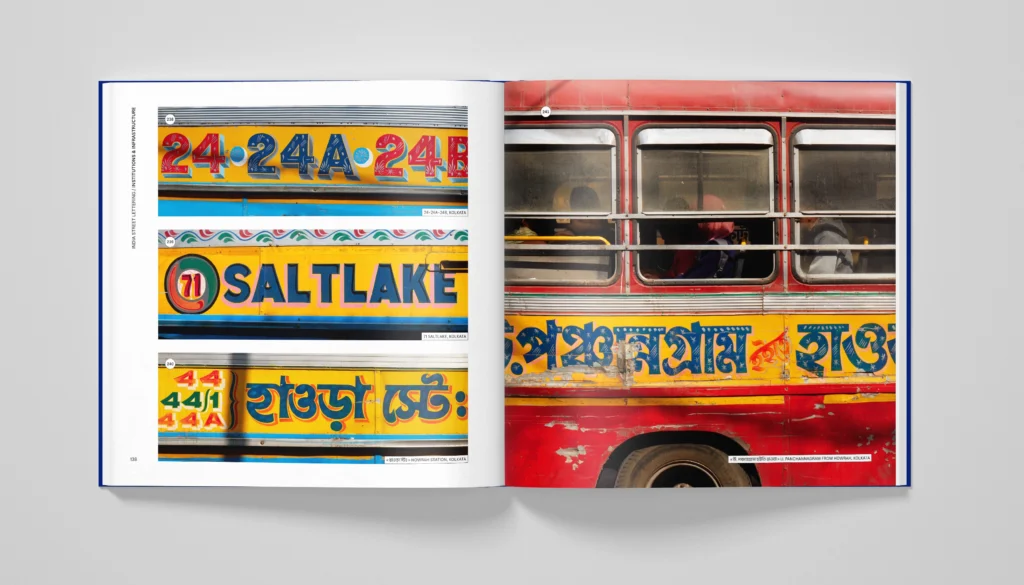
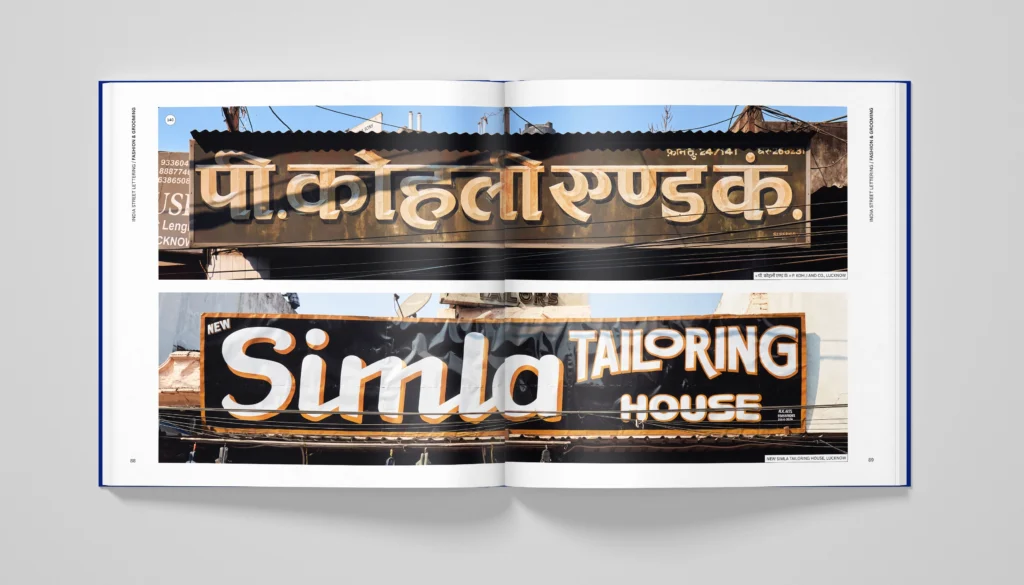
Accompanying this wide-ranging collection are stories of local signmakers, which give a rare peek into their design process, and how they view their vocation in a time of rapid technological change. Finally, the book includes four itineraries for the intrepid typographic traveller: guides for exploring the lettering gems of Kolkata, Chennai, New Delhi, and Mumbai.
[India Street Lettering] is fabulous… every spread glows… Pooja’s incandescent compendium is a required purchase for anyone interested in typography, graphic design, and/or urban space.
Pooja’s fantastic book [is a] fancy typographic object, sure, but [it] most certainly won’t sit quietly unread on your coffee table… Instead, Indian Street Lettering demands as much attention as Pooja has lovingly poured into this project.
India Street Lettering is a warm, thoughtful look at the signs that quietly shape India’s streets… It’s part archive, part love letter, and a deeply satisfying record of India’s everyday typography.
Documenting public lettering of a country colonized until 1947, whose vast typographic heritage ended up in British institutions rather than where it belongs, [is] an act of resistance.
For anyone concerned with preserving craft knowledge, [India Street Lettering] is a reminder that some archives only exist if individuals commit to building them, sign by sign, before the digital printers arrive.